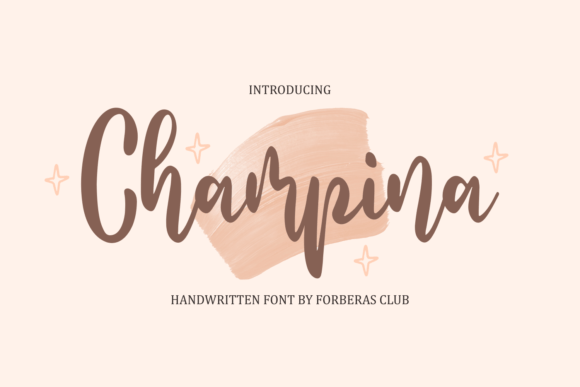
| 👤 Author | Forberas Club |
Enter the Champina Font, a handcrafted masterpiece designed to add an extra layer of elegance and sophistication to your projects. This beautiful font is perfect for creating headings, logos, ads, printed quotes, packaging, and even website or social media branding. With its unique touch, the Champina Font brings your designs to life, making them truly dance with style and sophistication.
Champina Font Key Features
- Unique Characteristics: Champina Font features a unique blend of modern and vintage elements, making it perfect for creating eye-catching designs that stand out from the crowd.
Champina Font Review
Overall, I was pleasantly surprised by the Champina Font. ✨ It’s a unique blend of modern and vintage elements, which makes it perfect for projects that require a touch of sophistication and elegance. The font is highly legible and can be easily read in various contexts, from digital displays to print materials.
Some of the strengths of Champina Font include:
- ✨ Versatility: It can be used in a wide range of projects, from logos to headings, and even for body text.
- ✨ Elegant aesthetic: The font has a sophisticated and refined look that makes it perfect for high-end projects.
- ✨ Easy to read: Despite its unique design, Champina Font is highly legible and can be easily read in various contexts.
- ⚠️ Limited character set: Champina Font has a relatively limited character set, which may not be ideal for projects that require a wide range of characters.
- ⚠️ Not suitable for small text: While the font is highly legible, it may not be the best choice for small text sizes, as the details can get lost.
Overall, I would highly recommend the Champina Font for projects that require a touch of elegance and sophistication. While it has some limitations, its unique design and high legibility make it a great choice for designers who want to add some personality to their work.
Tips for Getting the Most Out of Champina Font
Use Champina Font for creative projects that require a unique and playful touch.
Experiment with different font styles and sizes to add visual interest to your design.
Pair Champina Font with bold or italic fonts to create a striking contrast.